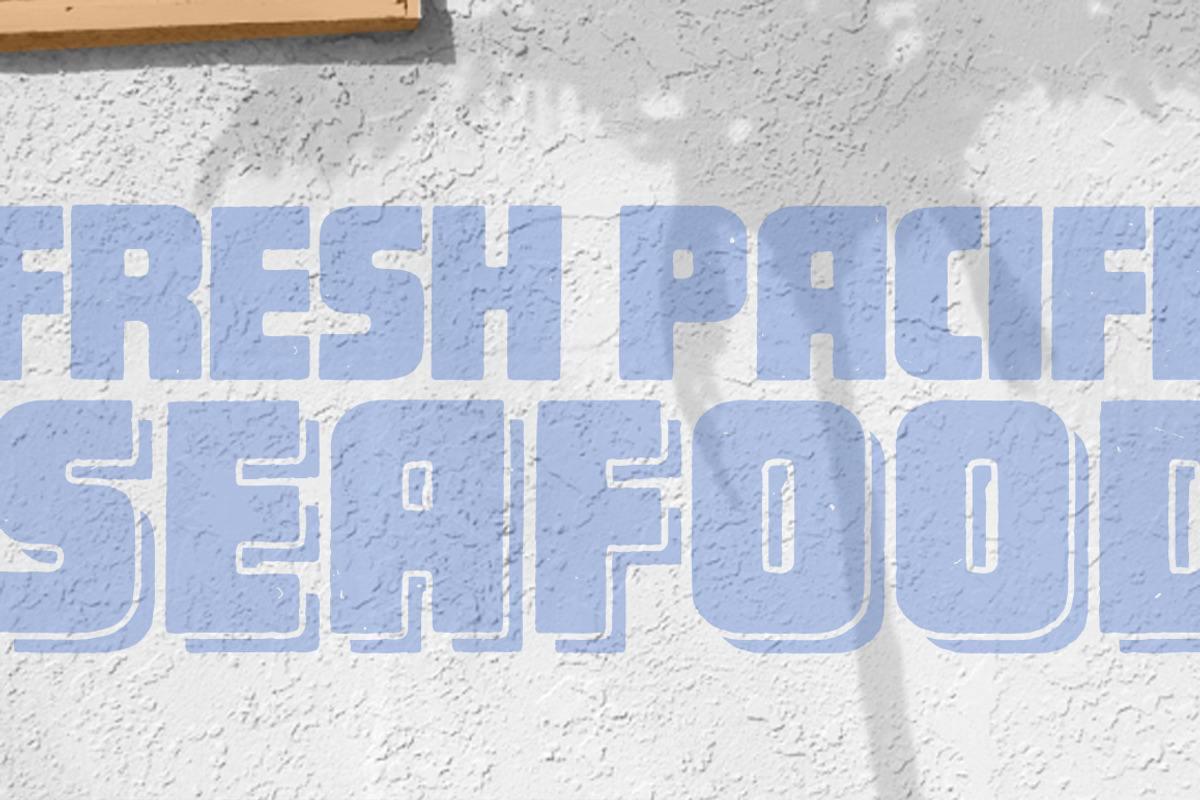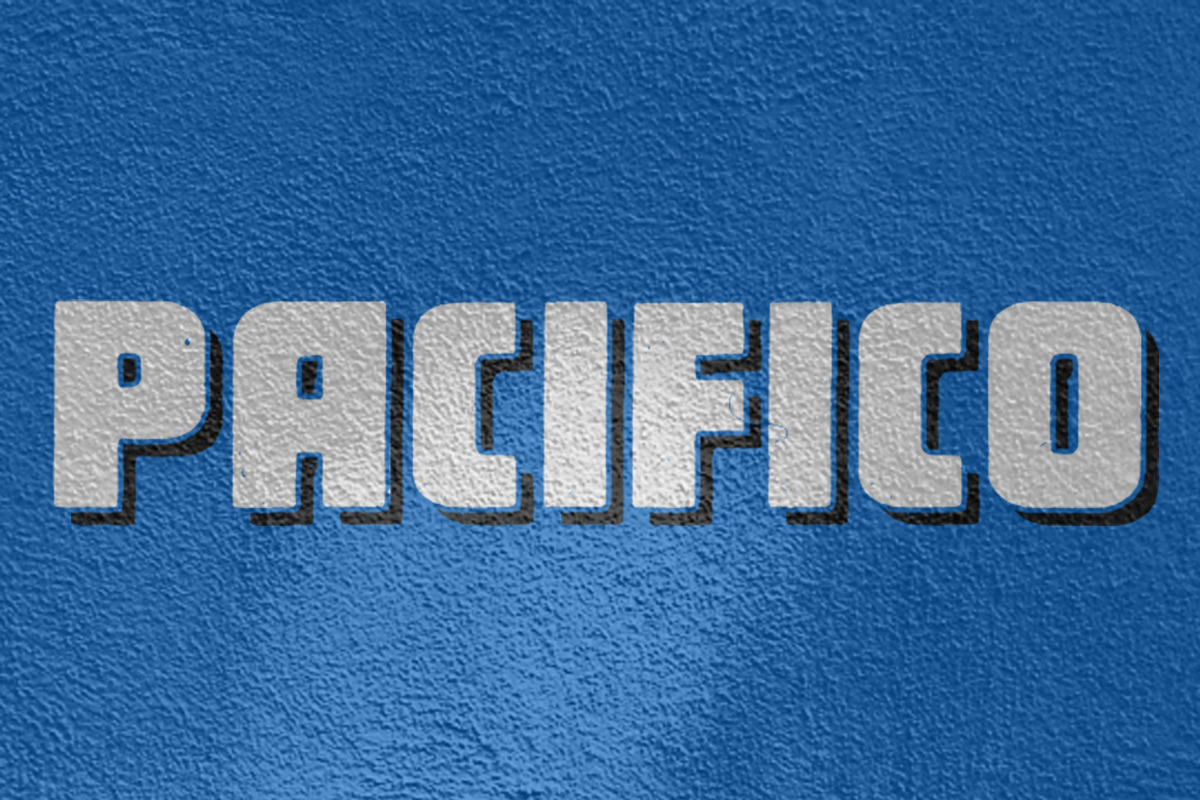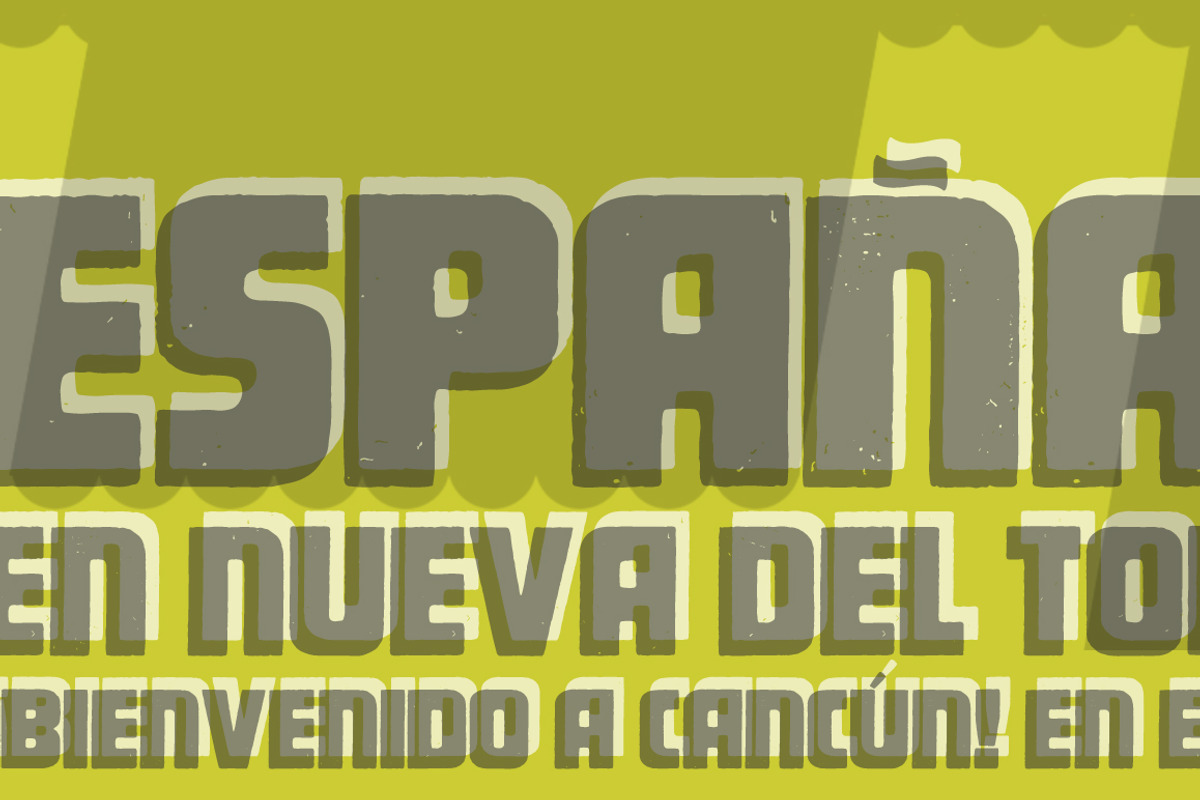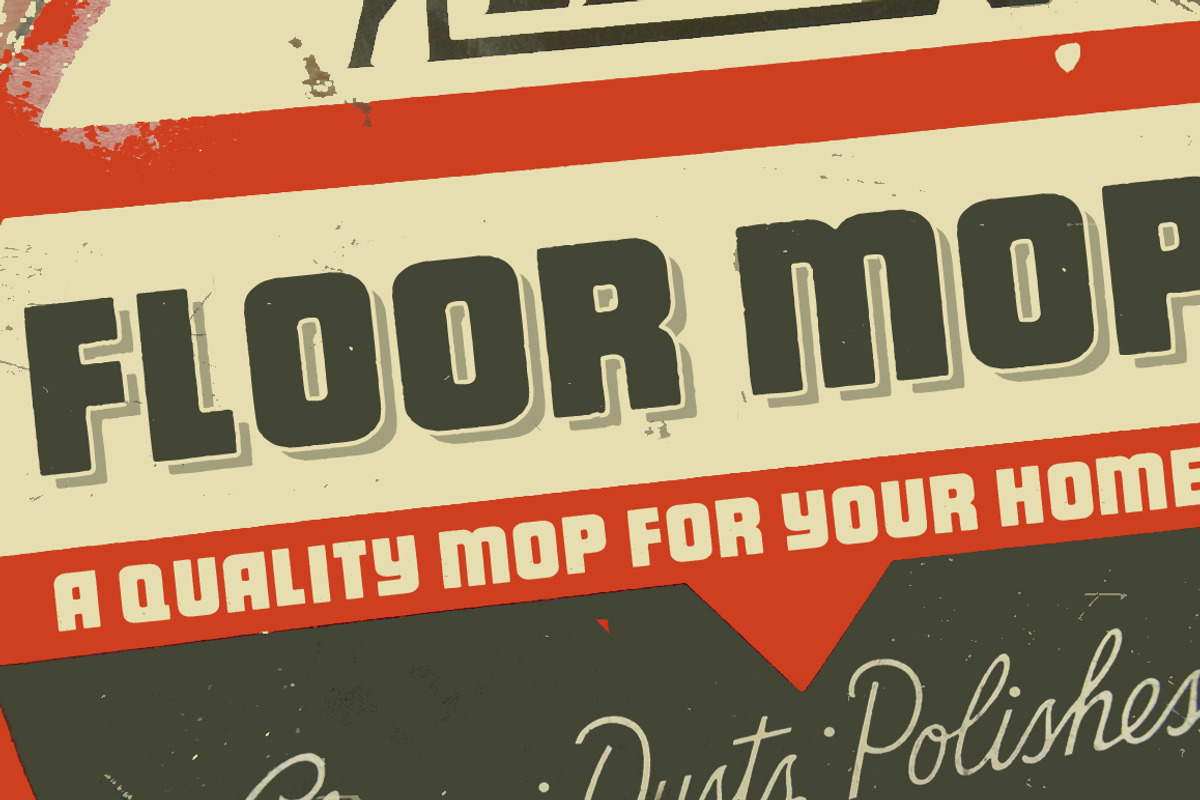
Pacifico Alternate font
Pacifico Alternate font by Aerotype is a font selected for branding, posters, packaging, typography.
Why Pacifico Alternate font is worth a look
Pacifico Alternate font by Aerotype fits naturally into Branding, posters, packaging, typography.